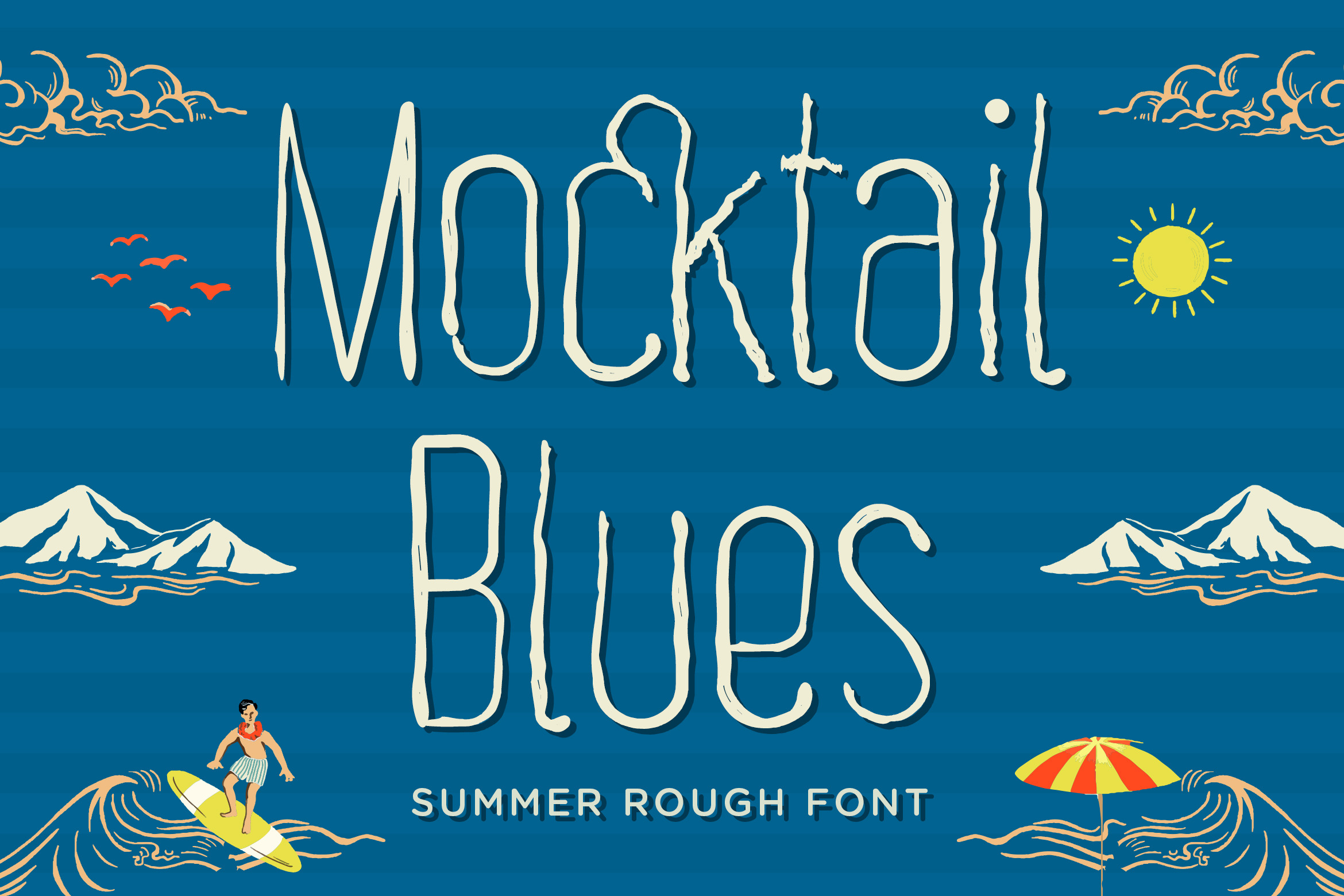
Mocktail Blues - Summer Rough Font
Mocktail Blues font is inspired by nature. The Rough font are very compatible and are great to combine. Perfectly suited for beach, summer, or nature-themed designs.